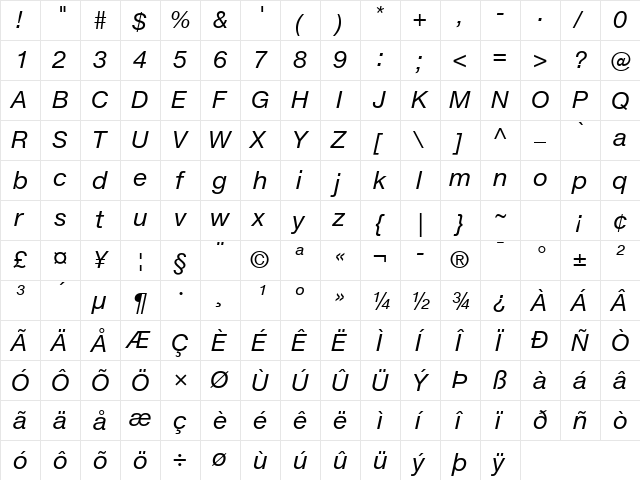
Helvetica Neue ET Pro 56 Italic
| Style | 56 Italic |
| Foundry | Linotype GmbH |
| Designer | Linotype Design Studio |
Design Context for Helvetica Neue ET Pro Typeface
Helvetica Neue ET Pro is a composed and adaptable typeface that performs quietly and consistently across a wide range of design contexts. The dynamic lean of this cut emphasises speed and emphasis in any layout.
Pro Tip: Use Helvetica Neue ET Pro for emphasis, pull quotes, and subheadings where its slanted energy can add rhythm to the layout.